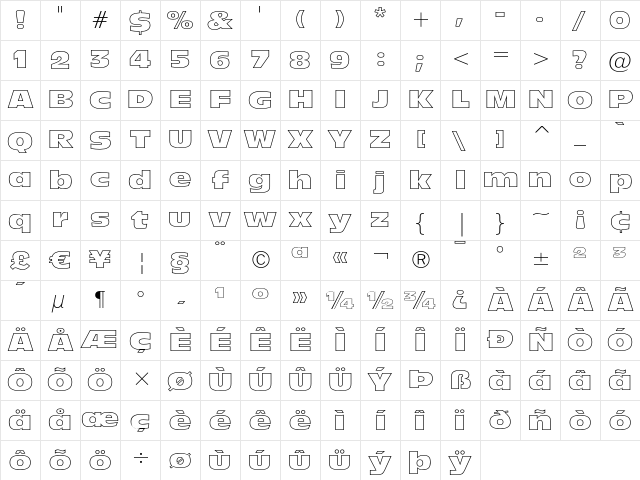
Incised 901 Nord Outline
Style: Nord Outline
Incised 901 Family
Incised 901 Nord Outline
Design Context for Incised 901
Incised 901 is built around its visual character rather than neutral utility - its distinctive forms are designed to make an impression at display sizes.
Font Pairing: Pair with a clean neutral sans-serif for body copy to let Incised 901's character lead without overwhelming the composition.
Pro Tip: Use Incised 901 exclusively at display sizes - it was designed to be seen, not read at length. Let a neutral companion handle body copy.